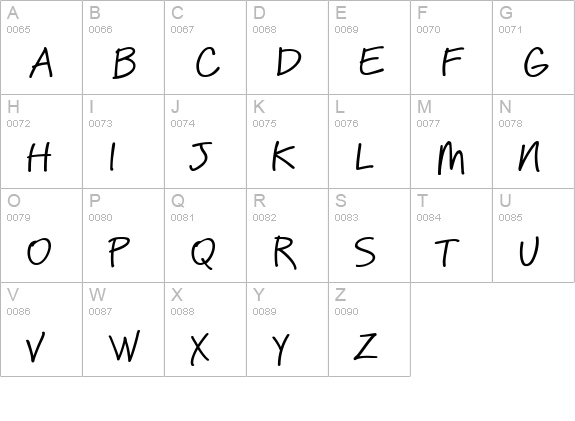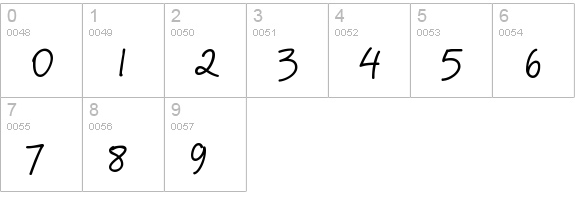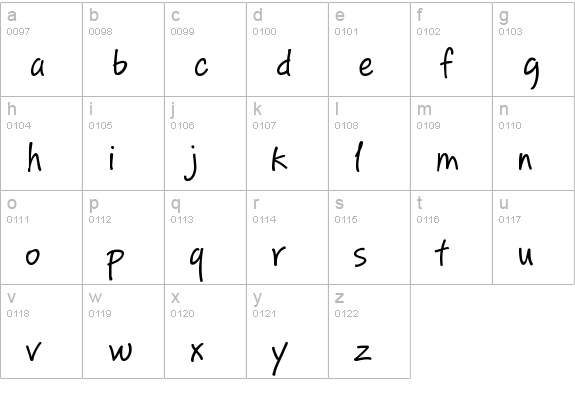
PFReminderPro-Regular Font Details
PFReminderPro-Regular is the standard, neutral variant in the PFReminderPro typeface family \xE2\x80\x94 well suited to general body text, paragraphs, and standard typographic work.
PFReminderPro-Regular font is a versatile and modern typeface that combines elegance with practicality. Its clean lines and well-balanced proportions make it the perfect choice for a wide range of design projects, from branding to editorial design. With its gentle curves and sharp edges, PFReminderPro-Regular exudes professionalism and sophistication. This font is freely available to download at FontsMarket.com, making it accessible to designers and creatives looking to add a touch of refinement to their work. Whether you're designing a sleek logo or crafting a stylish poster, PFReminderPro-Regular is sure to enhance your project with its timeless appeal and readability. Don't miss out on the opportunity to elevate your designs with this exceptional font.